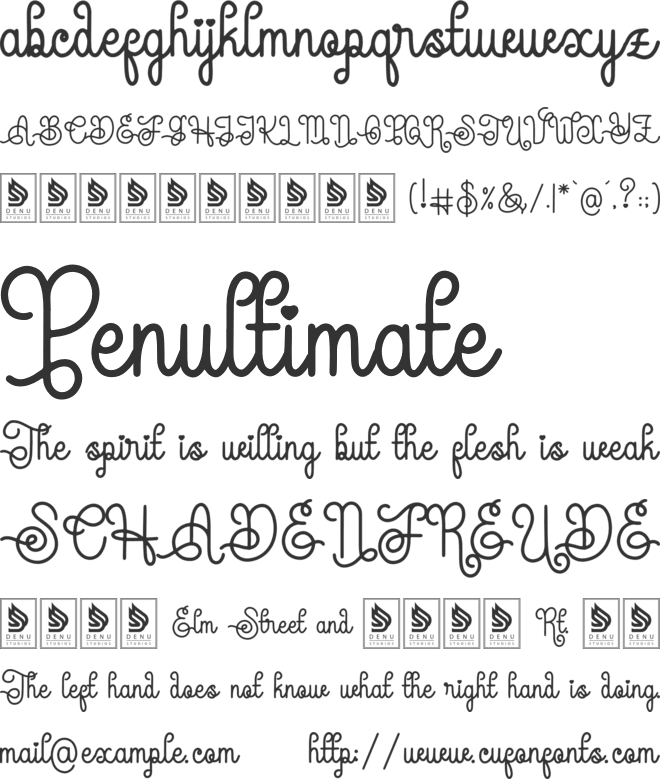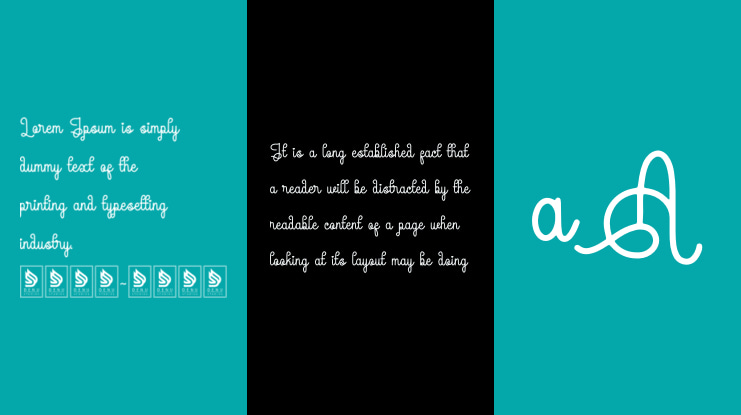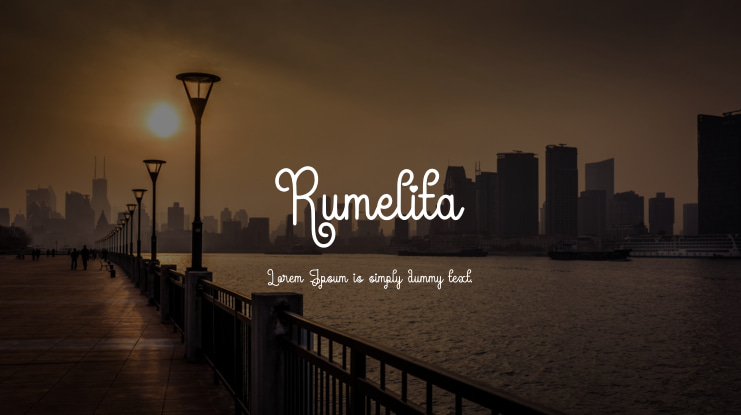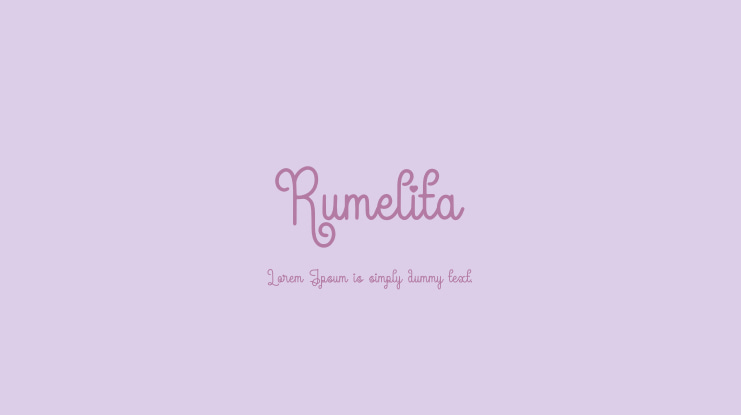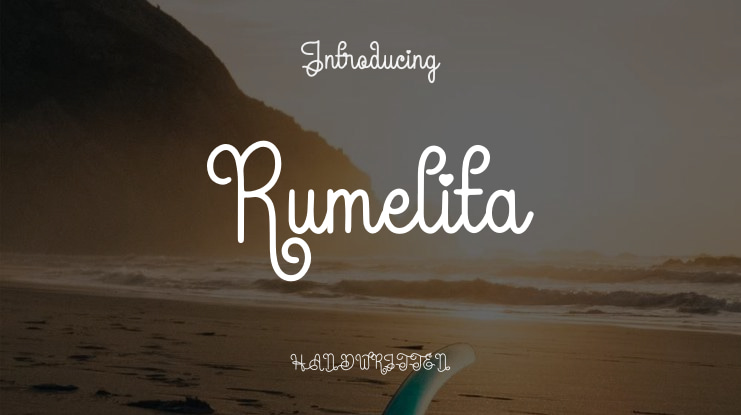
Rumelita Font
Rumelita | Handwritten Monoline is perfect for a variety of projects, including logos, branding initiatives, homeware designs, product packaging, mugs, quotes, posters, shopping bags, t-shirts, book covers, name cards, invitation cards, greeting cards, labels, photography, watermarks, special events, and many other projects that would benefit from a Handwritten Monoline touch.